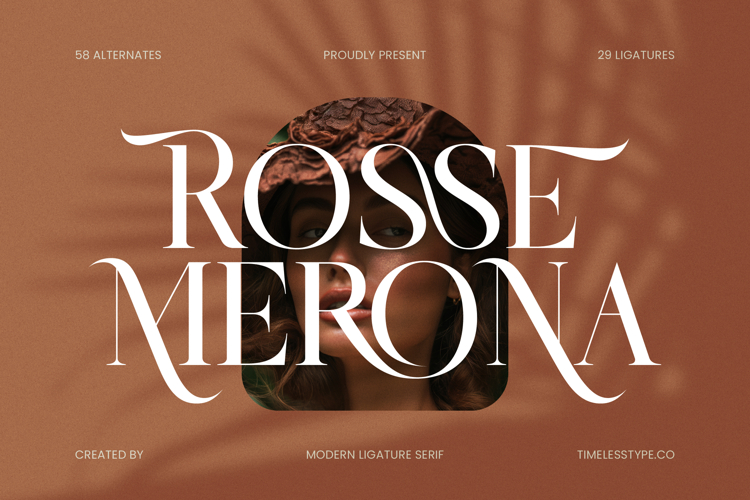
Rosse Merona - Modern Ligature Serif Font
Elevate your designs with the breathtaking elegance of Rosse Merona - Modern Ligature Serif Font. This exquisite typeface masterfully blends traditional serif forms with contemporary flair, creating a truly sophisticated design. Its delicate yet impactful high-contrast strokes and flowing serifs command attention, establishing an immediate sense of luxury branding and refined aesthetics perfect for any discerning project.
Experience unparalleled versatility with Rosse Merona - Modern Ligature Serif Font, a font designed to impress. Featuring a rich array of distinctive ligatures and elegant alternate characters, it offers limitless creative possibilities for crafting unique headlines, logos, and body text. It is ideally suited for luxury branding, high-end packaging, compelling editorial design, and captivating fashion branding, ensuring your visual identity is always paramount.